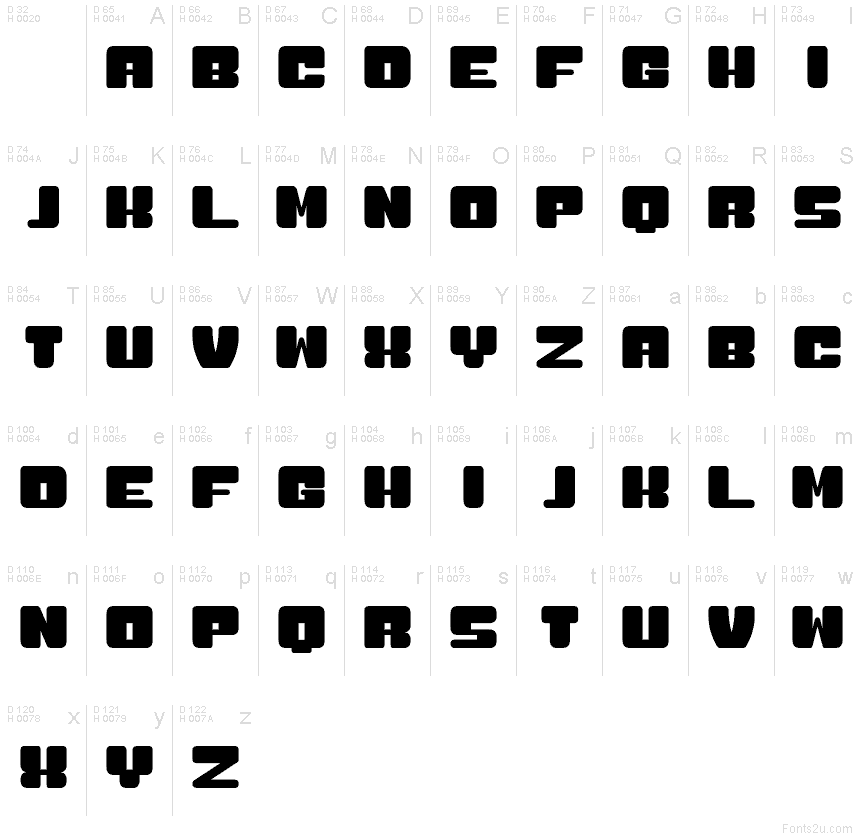
Bubblicious Wide Regular
Bubblicious Wide font by Vladimir Nikolic is a free display font included in the Bubblicious family that features an expanded width, bold weight, and groovy style. The retro-inspired characters are smooth and geometric for a uniform look making each design find the approachable edge it aspires to reach for an overall appealing presence.
Rounded from head to tails, this typeface can be finally featured in headlines or branding projects. Use Bubblicious with packaging designs such as food items or apparel items for kids, game interfaces and applications, magazines covers or pages; any printout will have character if graced by this ingenious typeface.